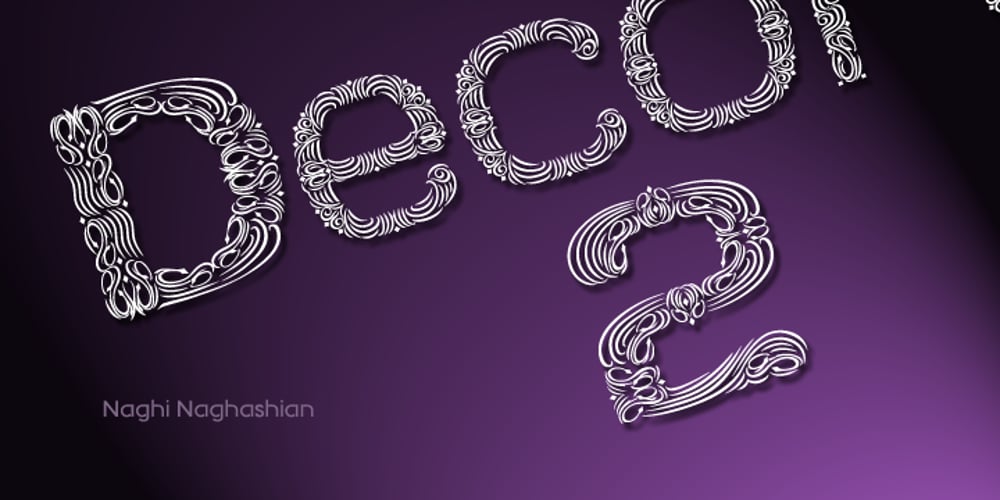
Decora Two Font Family was designed by Naghi Naghashian and published by Naghi Naghachian. Decora Two contains 1 styles and family package options. “Innovation” best describes Naghi Naghashian’s new Decora Two font. It is a “Liaison amoureuse” between the Sans Serif typeface and English manuscript style. Decora Two is the second of a series of typeface that enables graphic arts professionals the flexibility to use modern initials. It enables, moreover, the use of this typeface for decorative headlines and is a boon for manipulations of both vector-based and pixel-based graphic programs. Typographers worldwide, whose alphabets derive from the Roman one, depend on such innovations in order to meet increased demands of modern communication. This typeface enriches the possibilities for typographical design, which in turn increases the delight in such design. It gives me great pleasure to present this series of new typefaces to my creative colleagues worldwide!